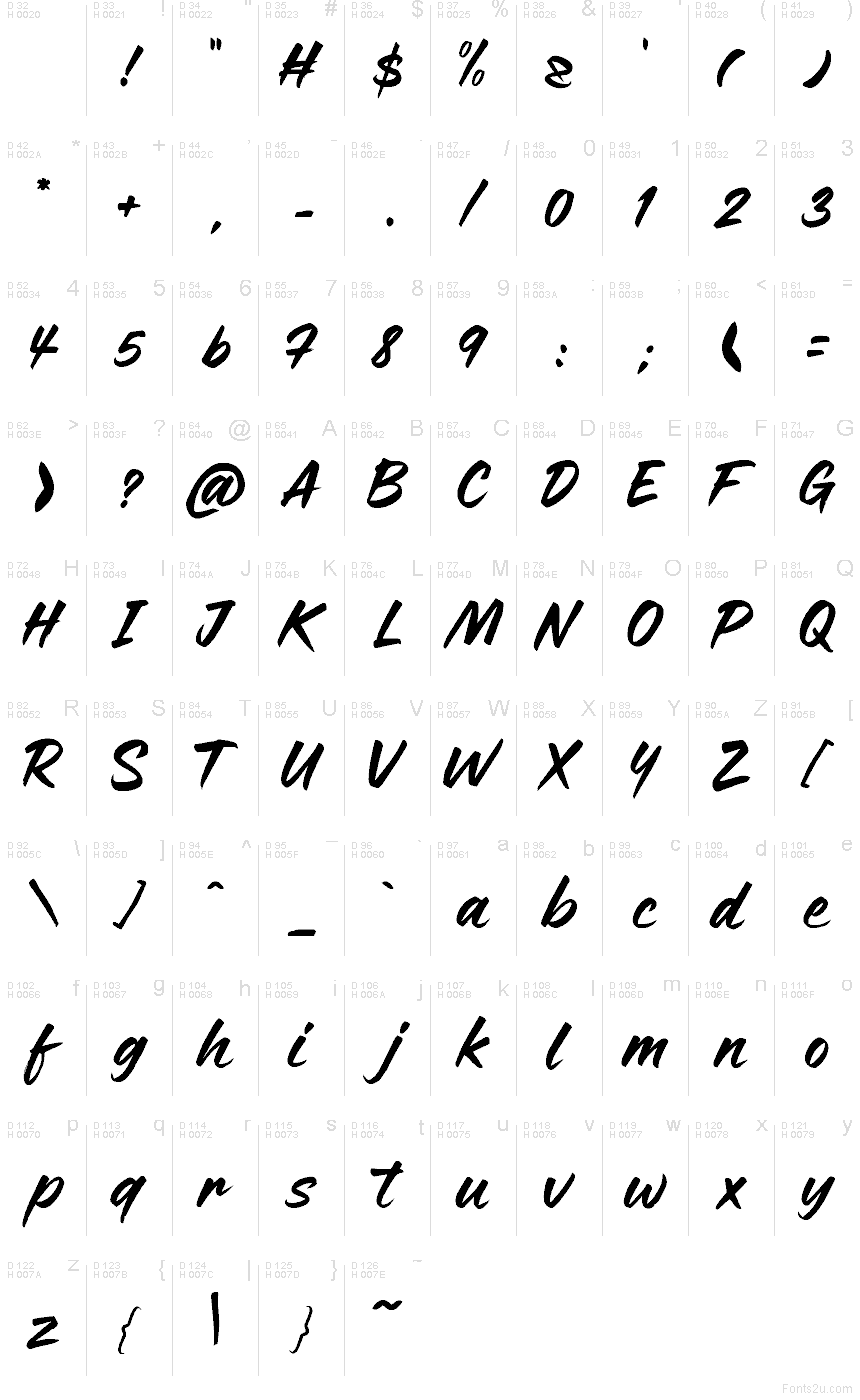
Stylotype font by BlackFridayFont FMF is a free brush script typeface that looks like it was painted in one confident sweep. Thick, inky strokes glide forward with a strong slant, giving every word a sense of motion and gloss, like fresh lettering on a storefront window. The curves are smooth and controlled rather than messy, so it keeps that hand-painted charm while still reading cleanly at a glance.
Using Stylotype, you get a brush script that really shines on logos, product packaging, social media graphics, posters, name badges, and signage where you want energy and polish side by side. This free font carries enough weight to stand on its own in headlines, but you can pair it with a simple geometric sans for body text to keep layouts clear and modern.